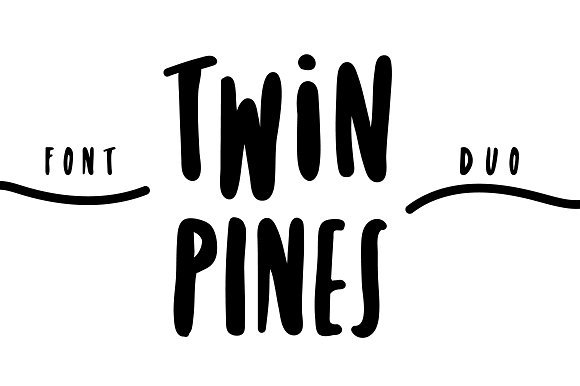
Twin Pines Font Duo
Twin Pines | Font Duo
Introducing Twin Pines Font Duo! a hand lettering modern typeface. Twin Pines designed by Lili Lieber, this is a premium font, are sold on creativemarket, but it was great, it is free today for download. Twin Pines is playful, quirky sans serif font duo with a Regular and an Alternative full case alphabet. By changing the lower- and uppercase letters you can easily achieve a unique handwritten, marker style font. Perfect for: Package design, poster design, apparel design, wedding invitations.